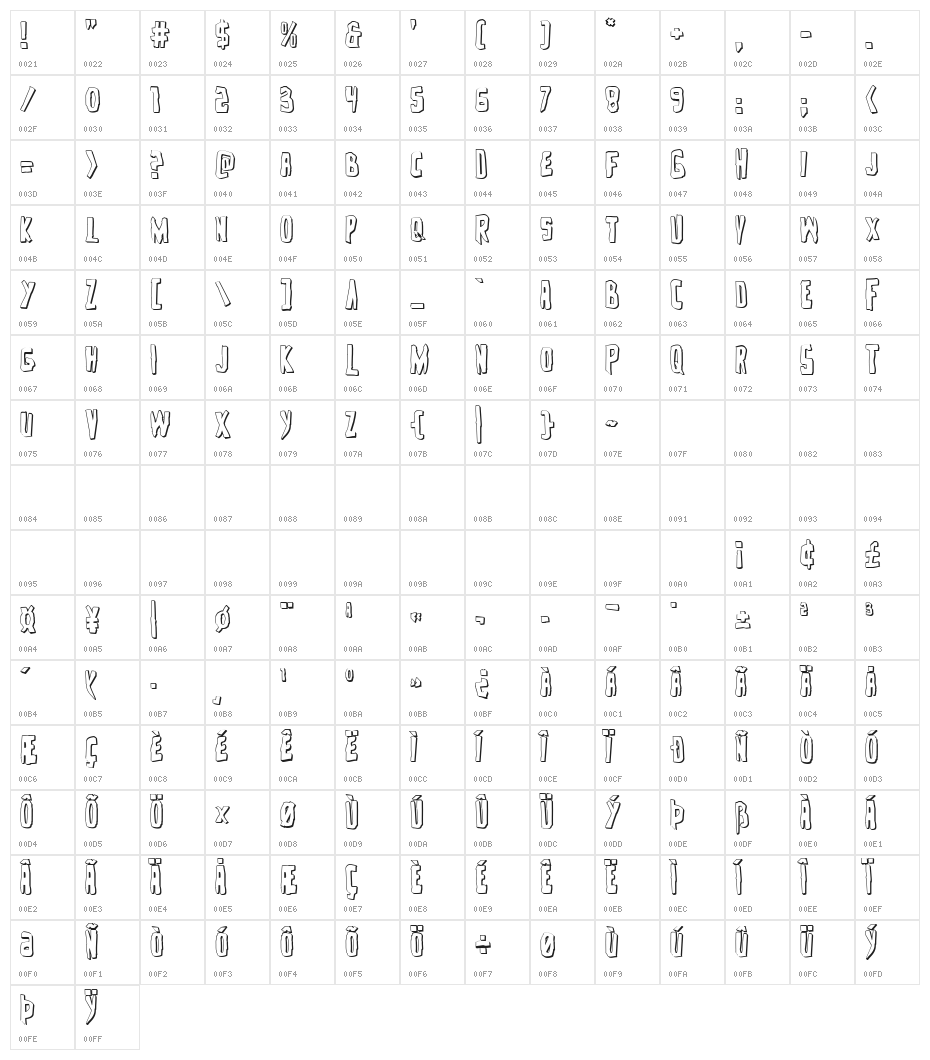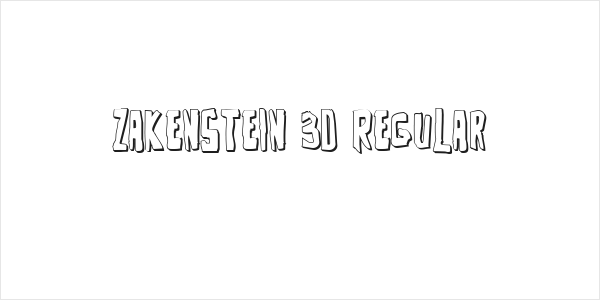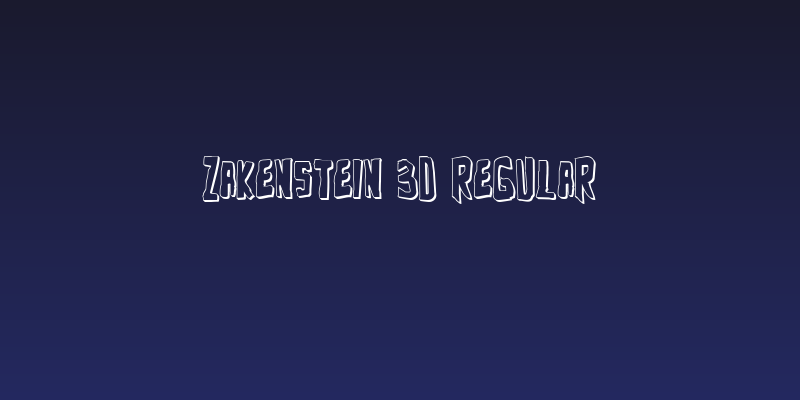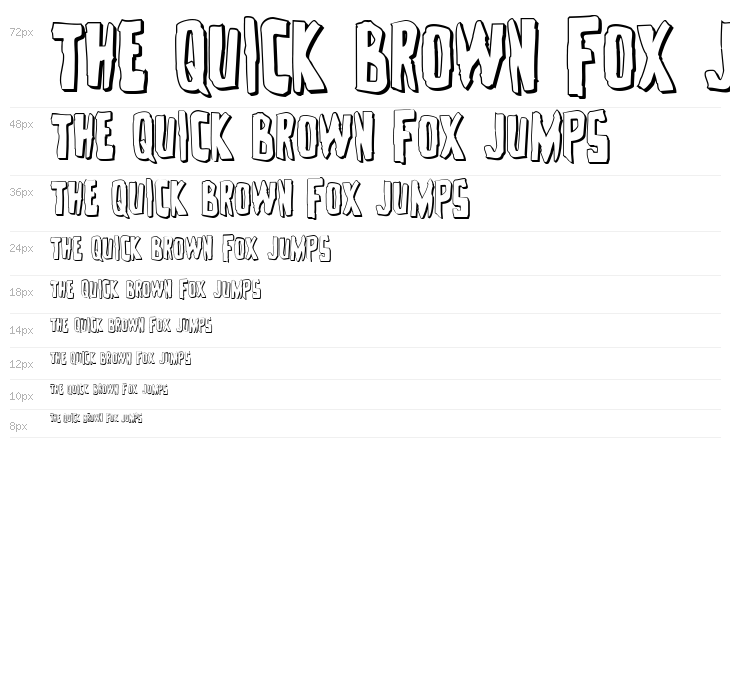
Zakenstein 3D Regular Font
Zakenstein 3D Regular Description
This font features a bold, three-dimensional style with a playful and dynamic appearance. The letters are outlined with a shadow effect, giving them a sense of depth and movement. The characters have a slightly irregular shape, adding a quirky and informal touch. The font is highly decorative, making it suitable for eye-catching designs. The uppercase and lowercase letters maintain a consistent style, while the numbers and special characters complement the overall aesthetic. This font is ideal for projects that require a fun and engaging visual impact.
| Proposed Projects | Ideal for posters, comic book titles, children's book covers, and playful branding. |